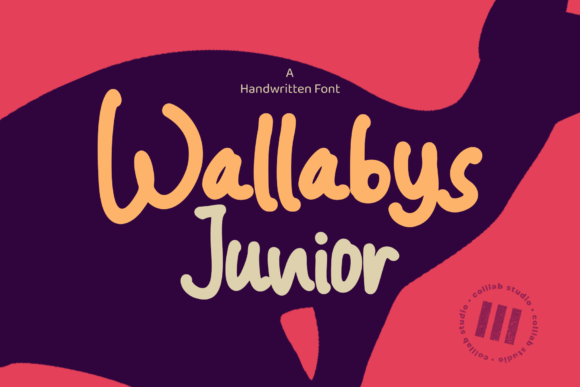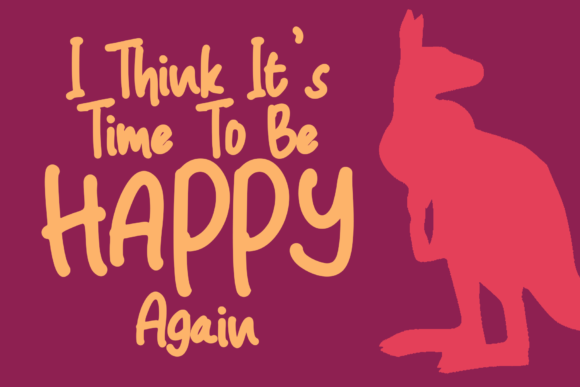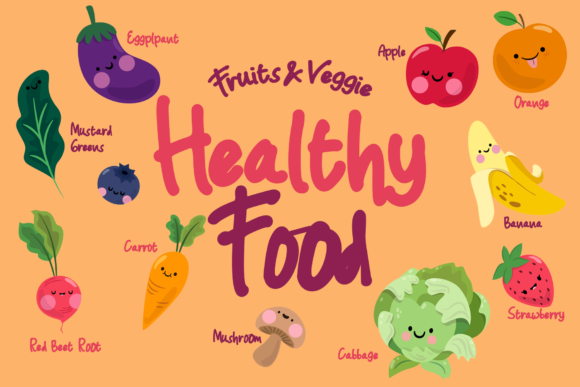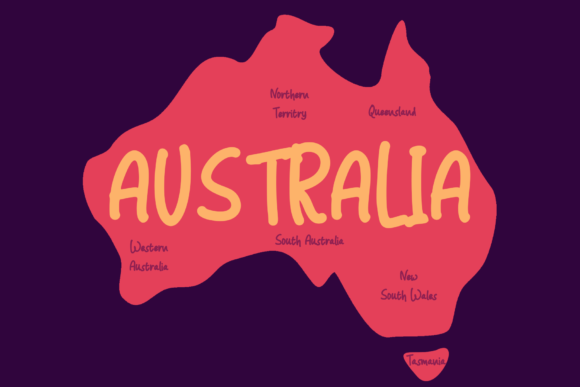
Wallabys Junior
About Wallabys Junior Font
Wallabys Junior embodies fun, playfulness, and authenticity. This enchanting handwritten font will turn any creative idea into a true standout!